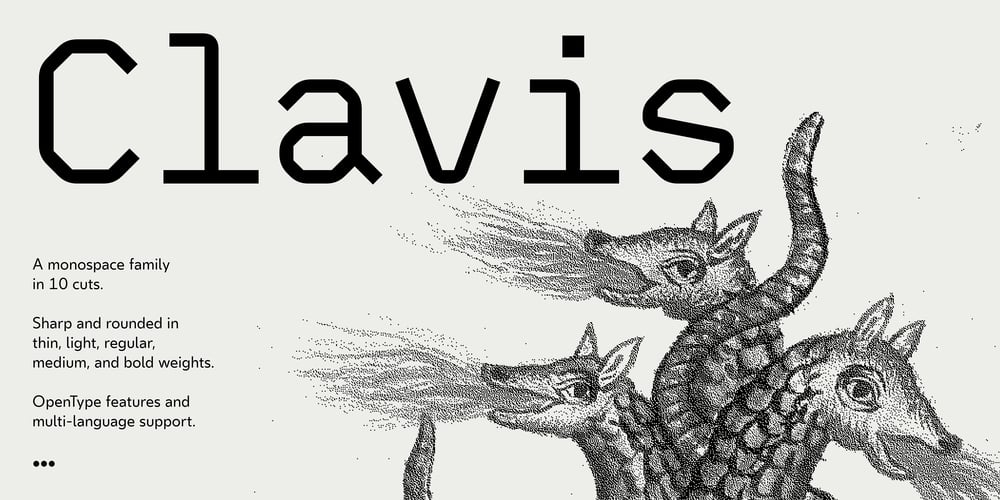
Clavis Font Family was designed by Josiah Tersieff and published by Internumeral. Clavis contains 10 styles and family package options. Clavis is a highly adaptable monospace font family featuring two sub families: round and sharp, with five weights each. Drawn with a rigid, geometric structure, each character is constructed using only straight verticals, horizontals, and limited angle variations. The elimination of curves conveys a sense of rigidity and technical precision, ideal for tech-related content or as a contrast to more historic styles. With ten fonts in total, Clavis delivers a harmonious blend of rigid design and functional clarity, making it a versatile option for a variety of projects.